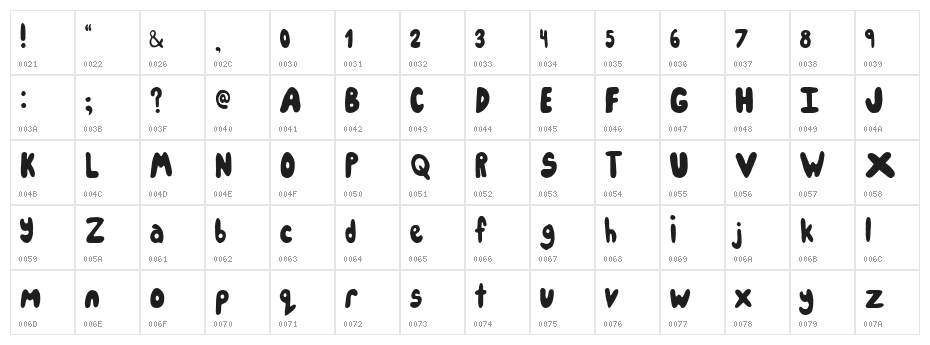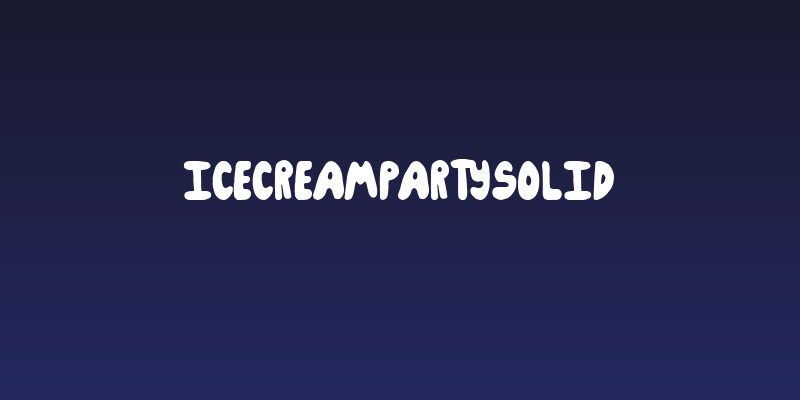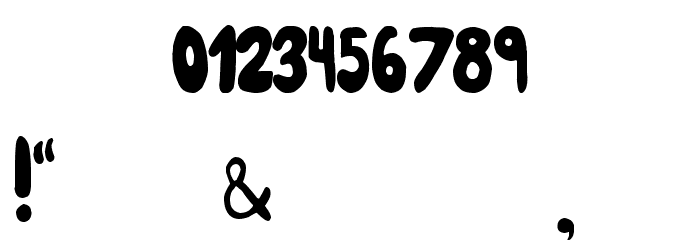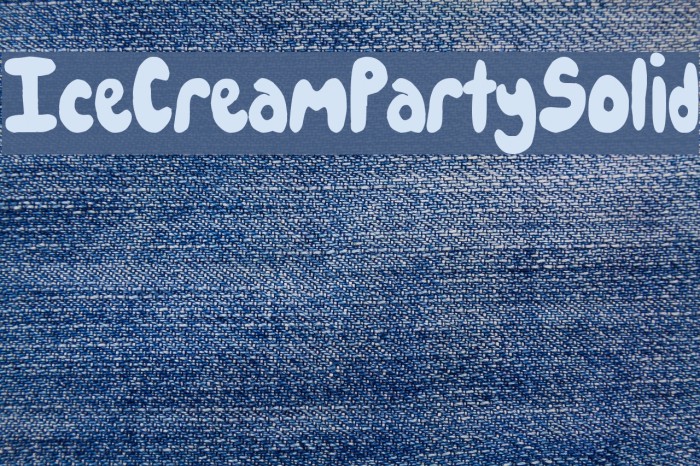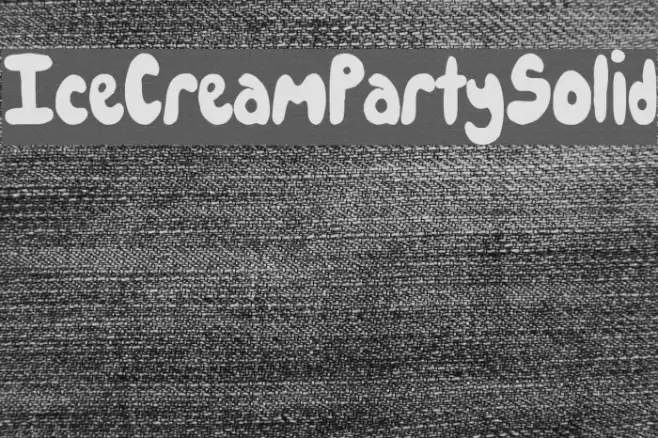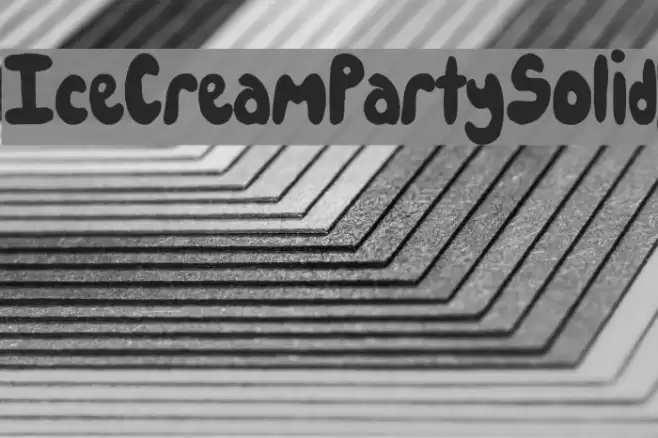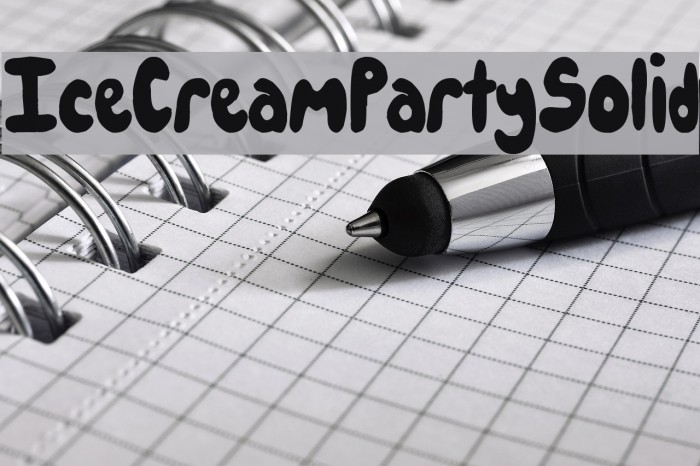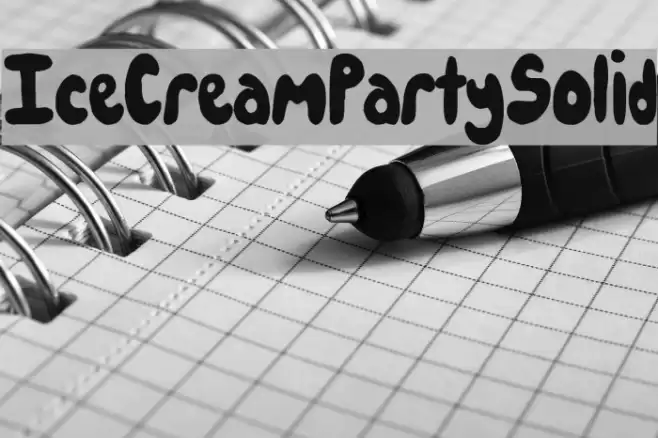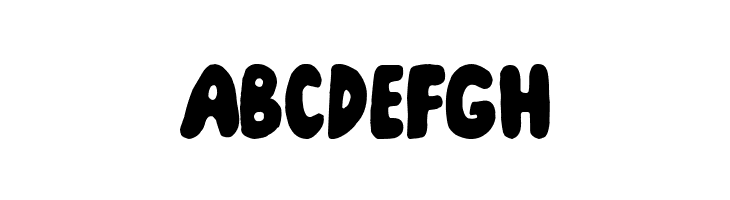
IceCreamPartySolid Font
IceCreamPartySolid Description
This playful and bold font features thick, rounded characters that exude a sense of fun and whimsy. The letters are uniformly bold with a slightly irregular shape, giving them a hand-drawn appearance. The uppercase and lowercase letters maintain a consistent style, with the lowercase being slightly more compact. Numbers and special characters follow the same design ethos, ensuring a cohesive look across all text. The font's solid, filled-in appearance makes it stand out, ideal for capturing attention in a variety of settings.
| Overall Style | Playful |
| Proposed Projects | Ideal for children's book covers, playful branding, party invitations, and any project needing a fun, eye-catching typeface. |